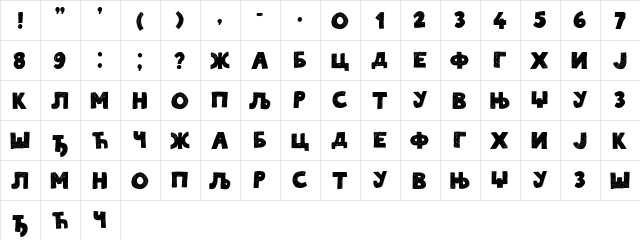
Beograd Regular
Design Context for Beograd Typeface
Beograd is a composed and adaptable typeface that performs quietly and consistently across a wide range of design contexts.